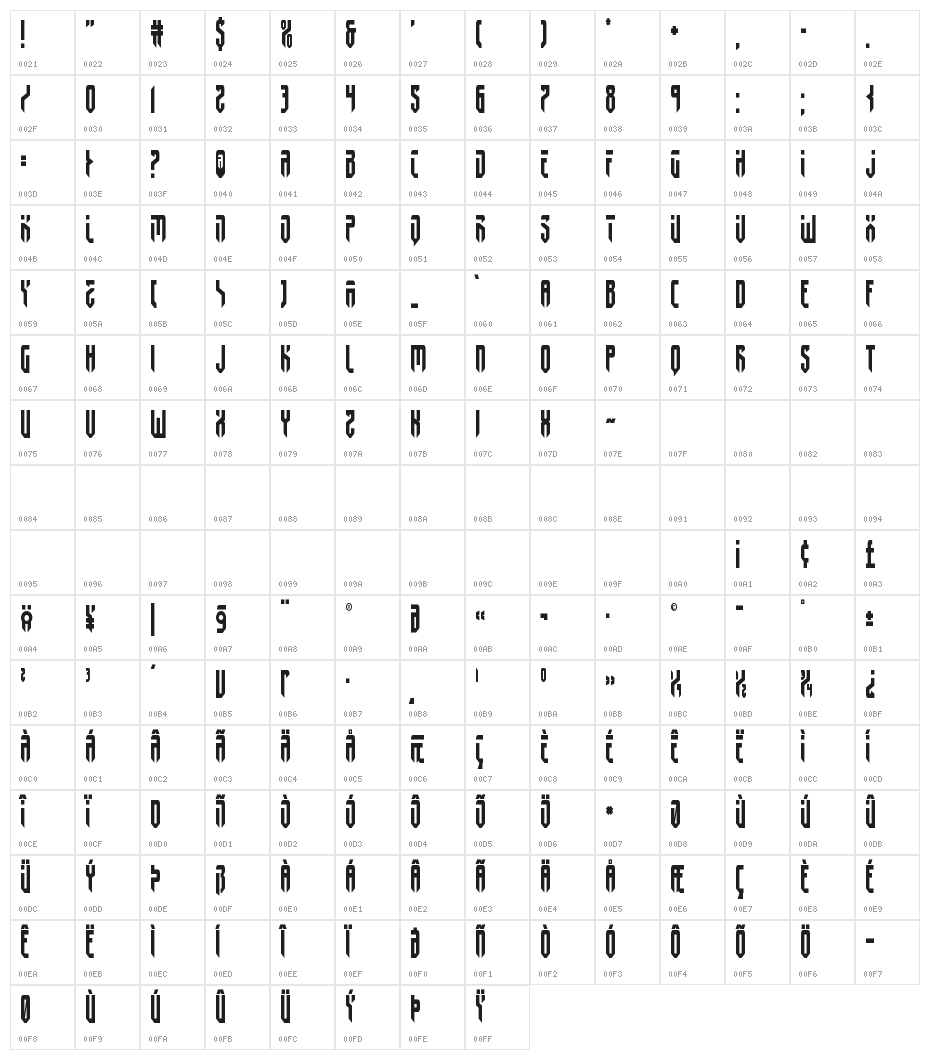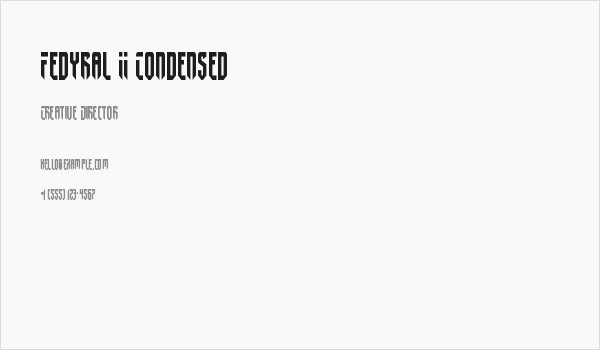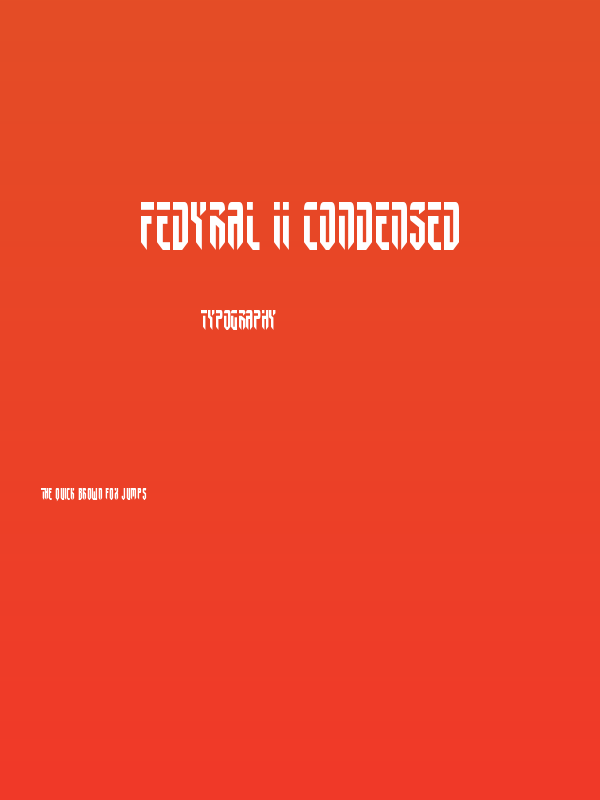
Fedyral II Condensed Font
Fedyral II Condensed Description
This font features a bold, geometric design with sharp angles and a condensed structure, giving it a futuristic and industrial feel. The characters are uniformly styled with consistent stroke thickness, creating a cohesive and striking appearance. The uppercase letters are particularly prominent, with a strong presence that commands attention. The numerals and special characters maintain the same angular and condensed style, ensuring uniformity across all glyphs. This font is ideal for projects that require a modern, edgy look, such as technology branding, sports team logos, or urban-themed designs.
| Overall Style | Futuristic, Industrial |
| Proposed Projects | Ideal for technology branding, sports team logos, urban-themed designs, and modern posters. |